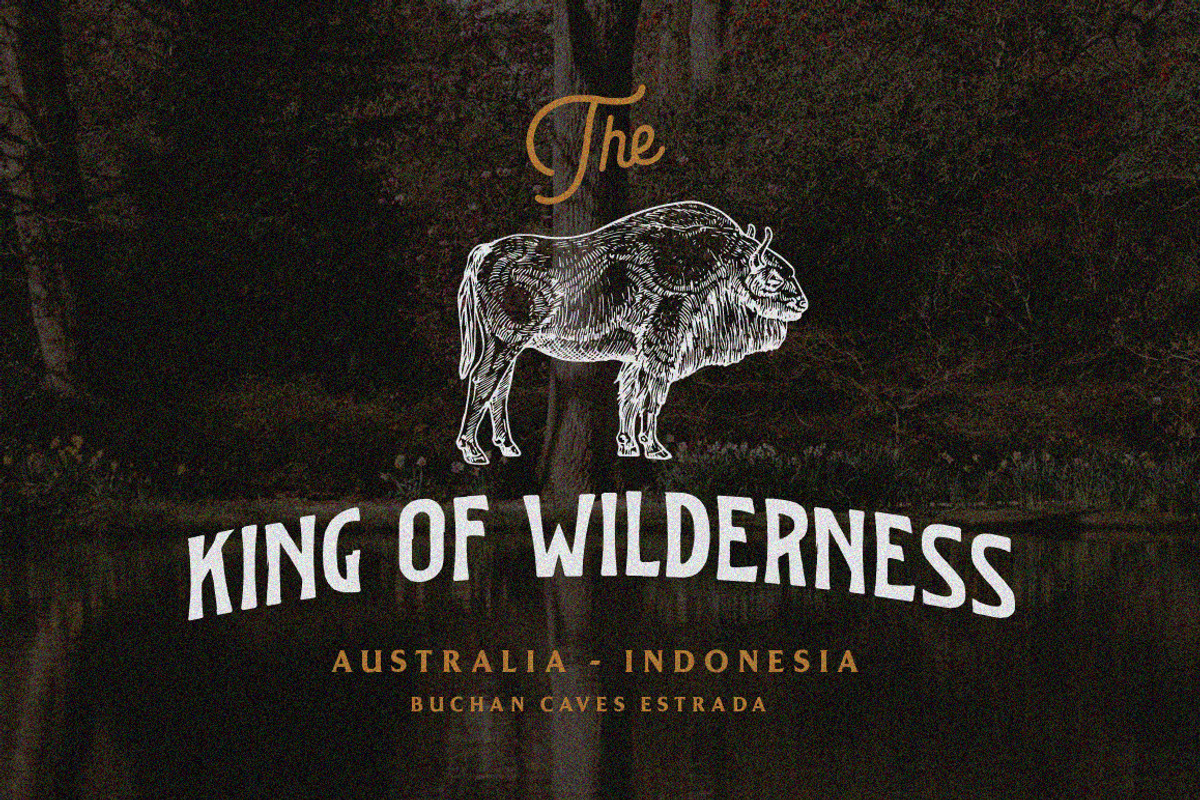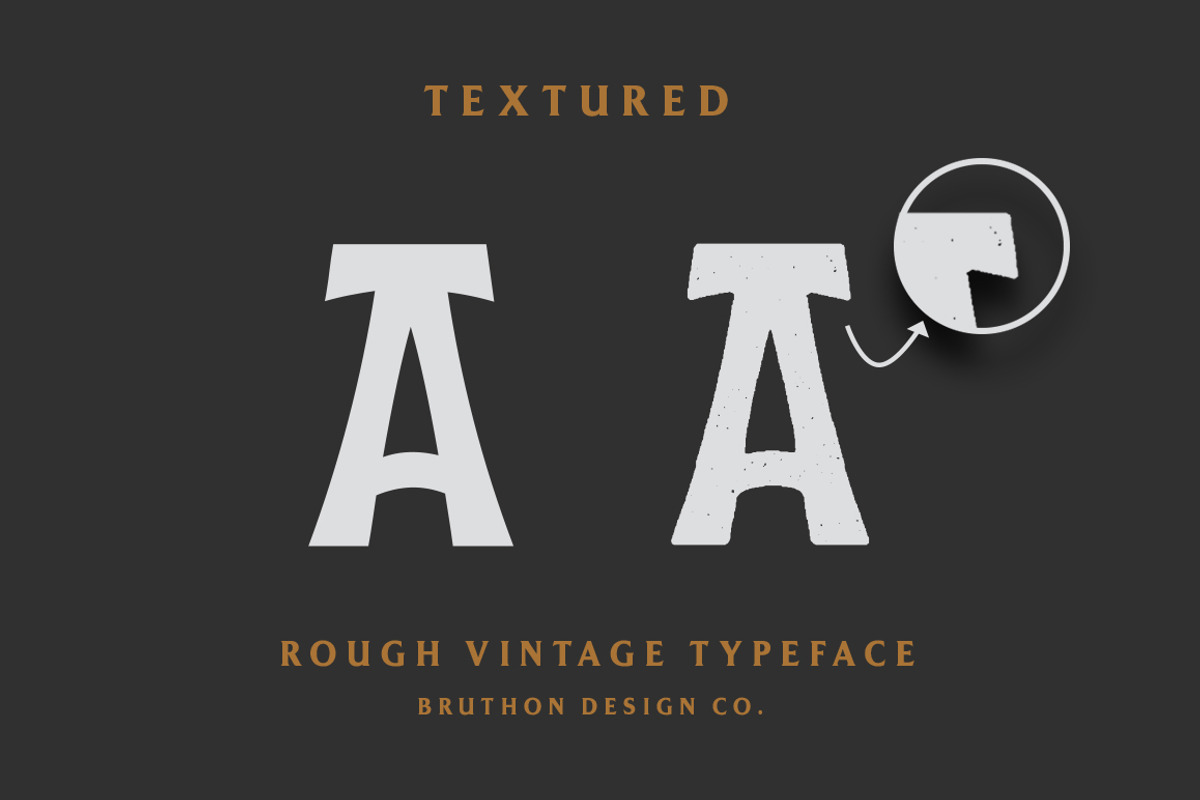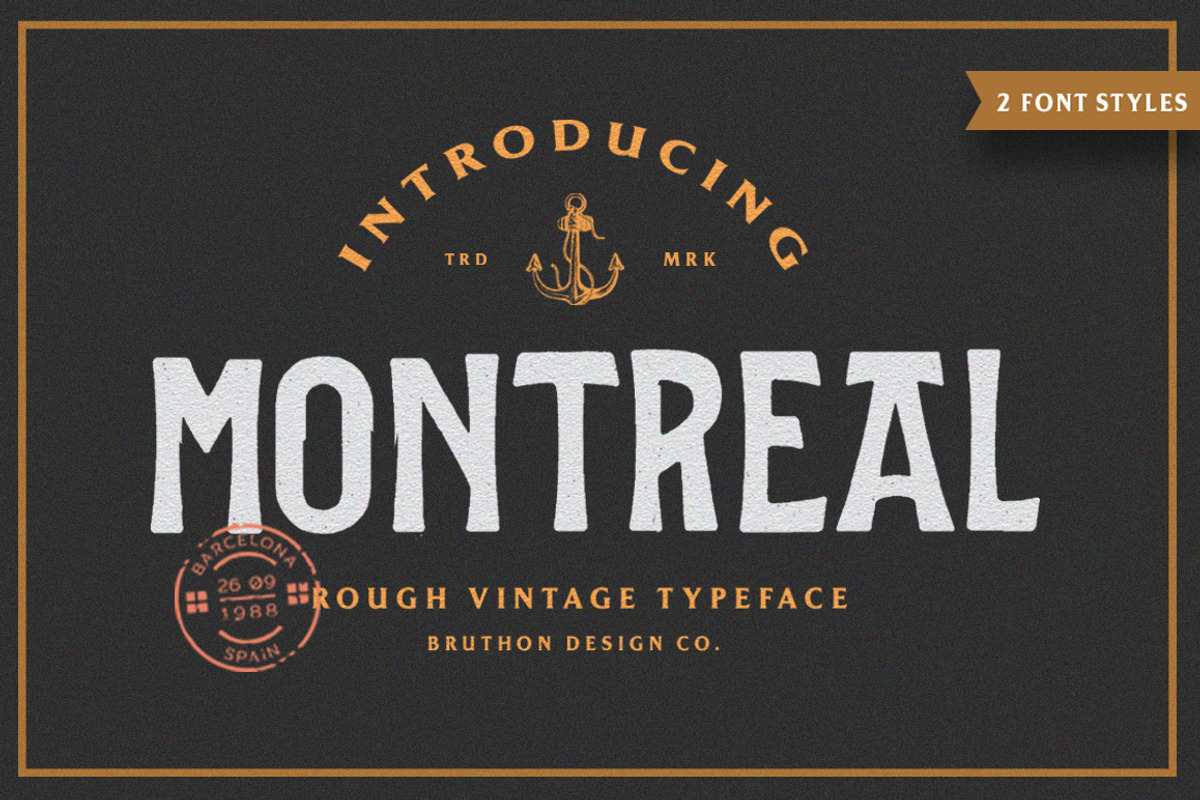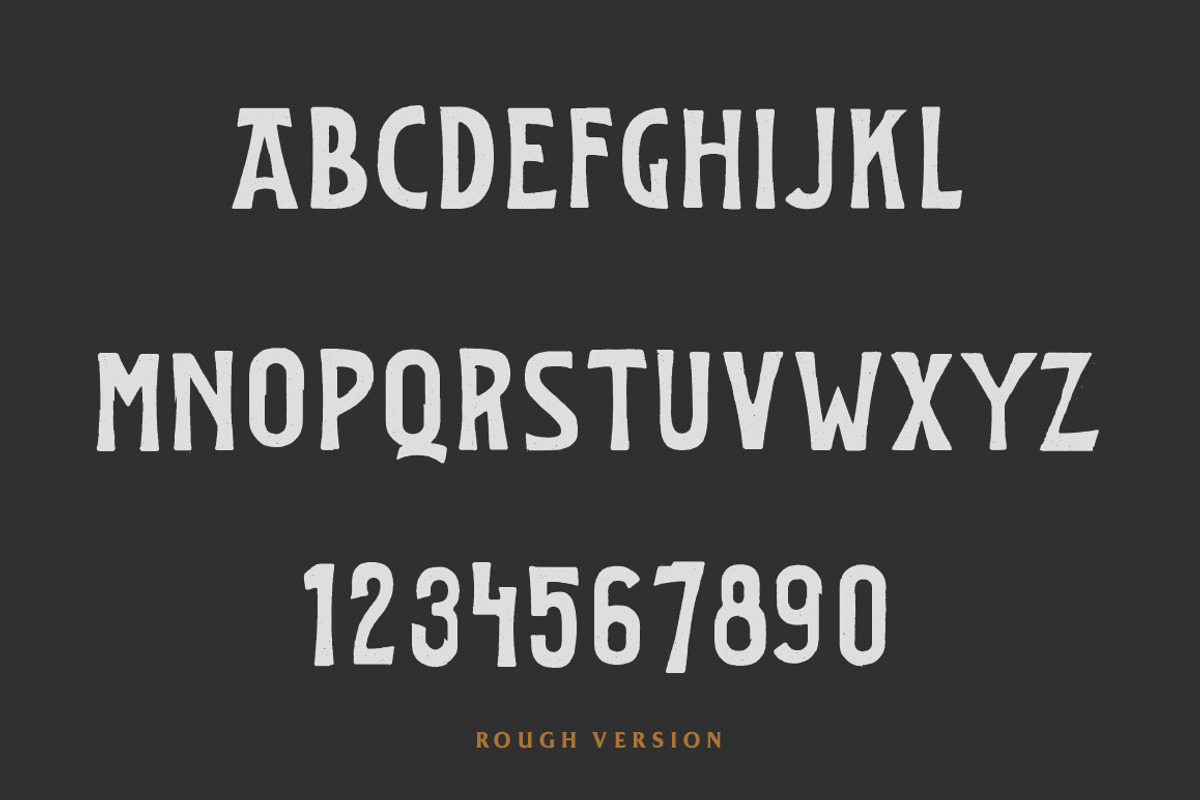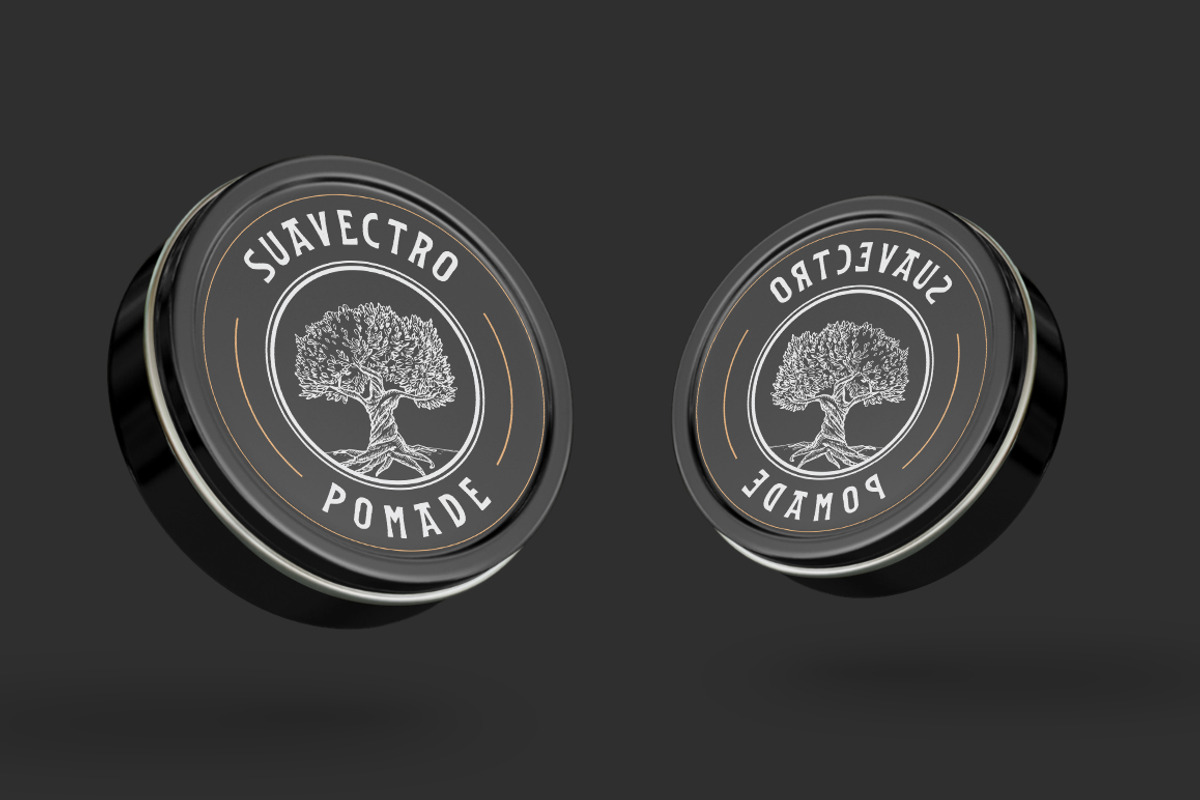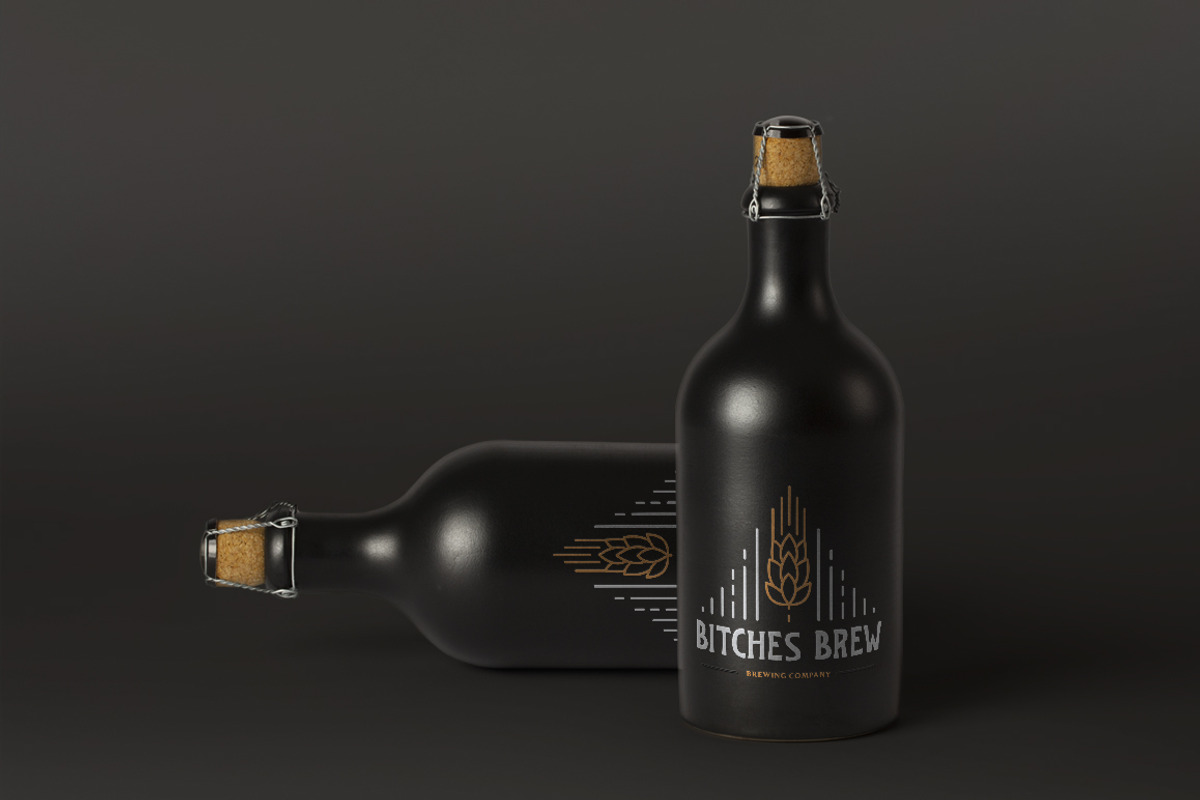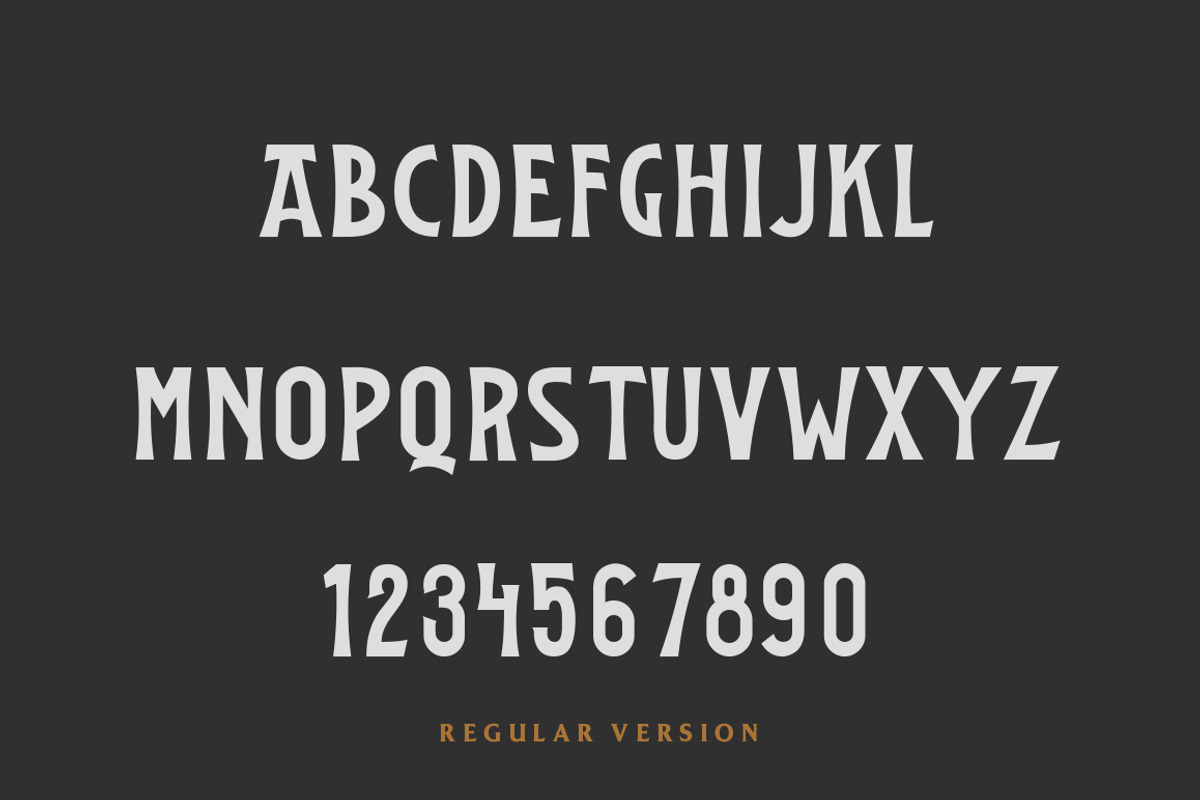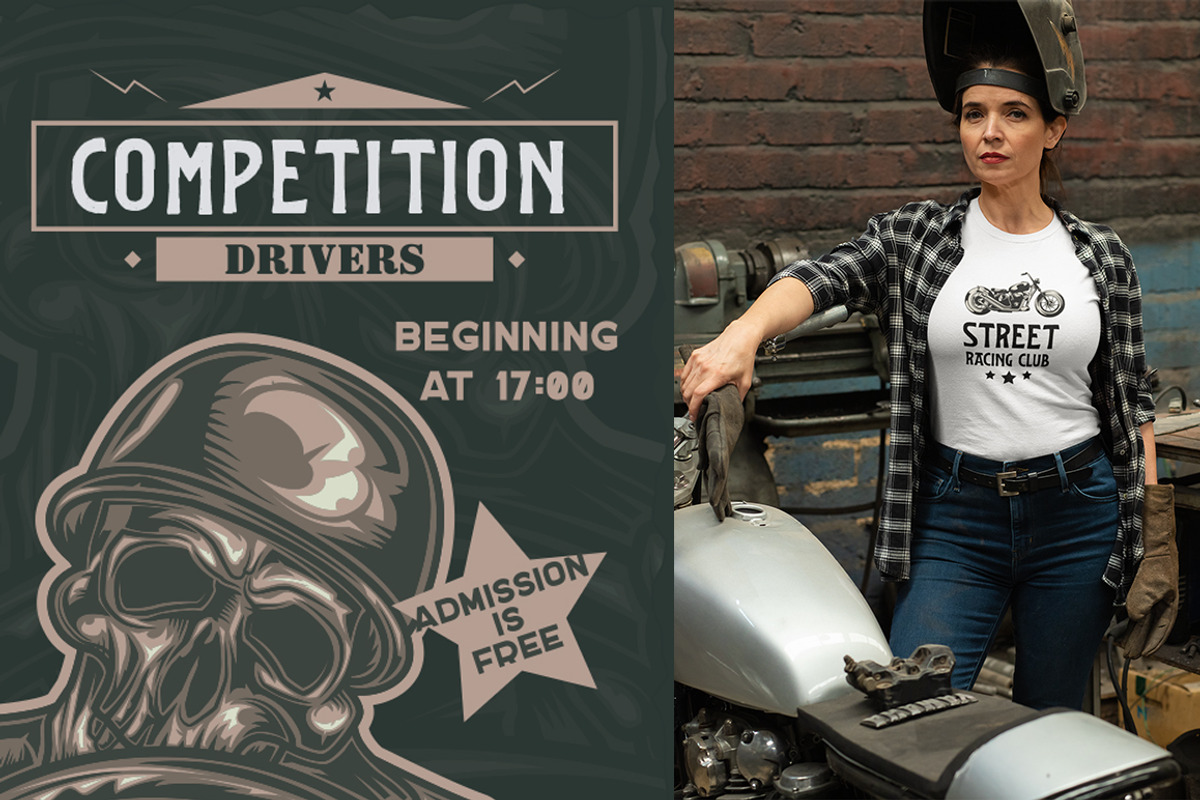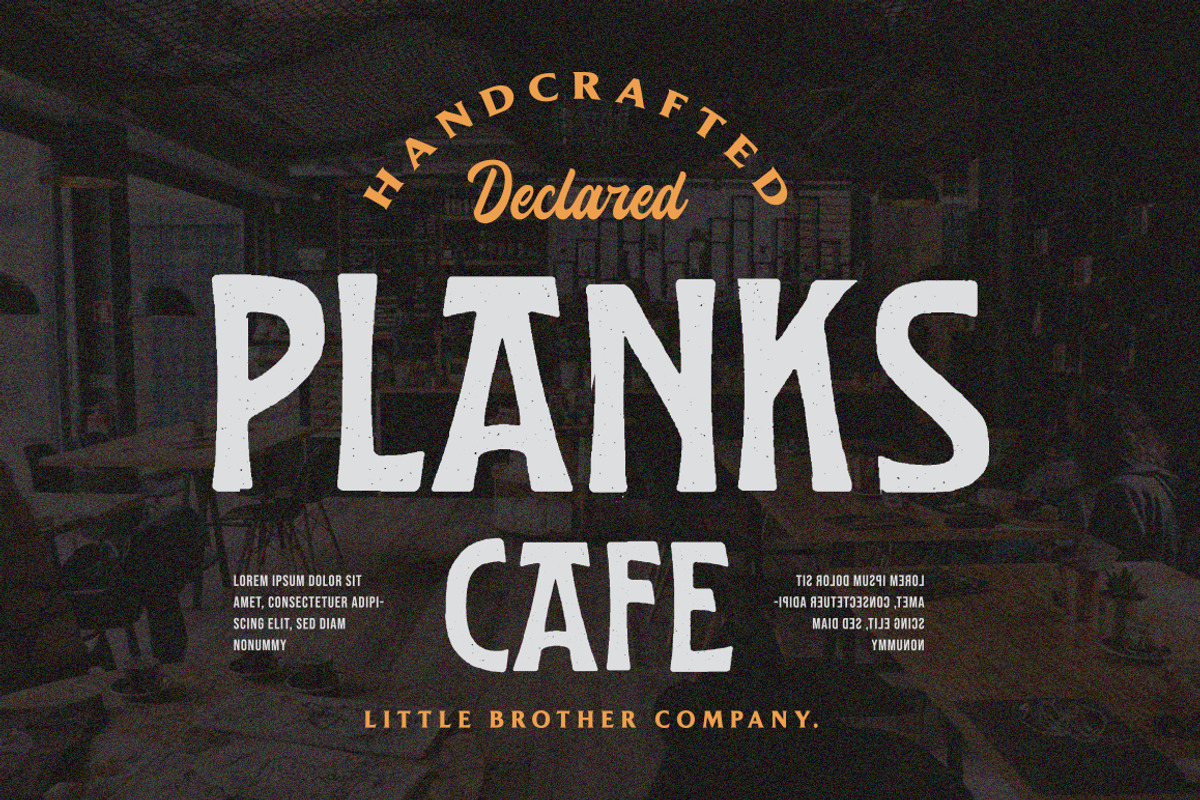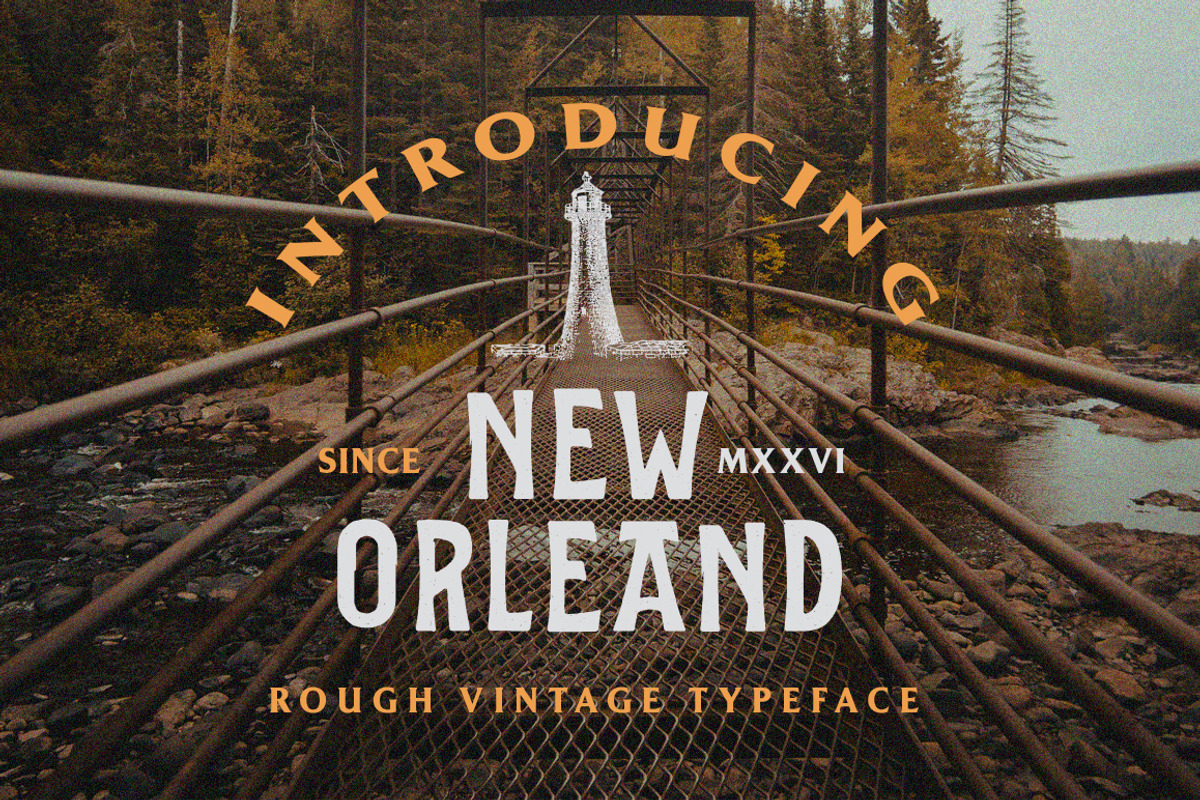
Montreal Vintage
Inspired by the Vintage retro style, we created a this typeface that you can use for all projects.
Montreal is a stylish font It has both modern and retro look - clear, modern and fun. Perfect if you need a dose of fun in your project.
- Unique letterforms